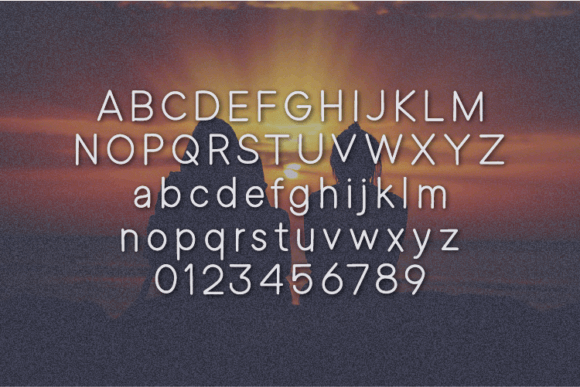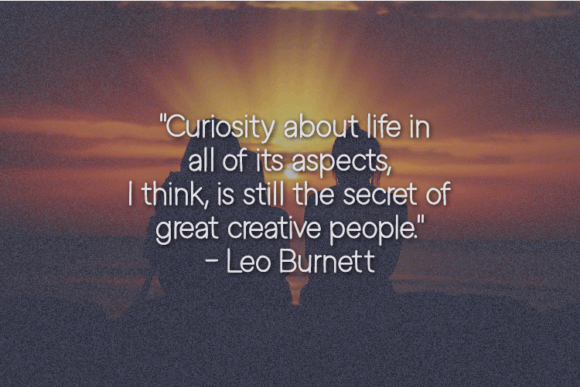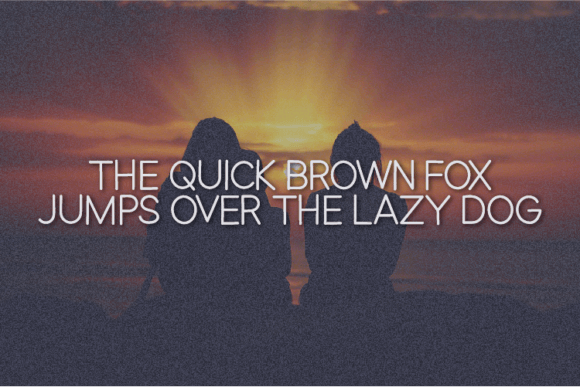
Introducing Friendly Font: Elevate Your Craft with a Touch of Elegance
In the world of design, the right font can make all the difference. It’s the perfect blend of style, readability, and personality that can elevate your craft and set it apart from the competition. If you’re on the hunt for a typeface that embodies a natural and elegant style, look no further than Friendly Font. This casual and neat sans serif font is here to revolutionize the way you approach your designs, making it easier than ever to create stunning visual content that captivates your audience.
The Essence of Friendly Font
Friendly Font is more than just a typeface; it’s a design companion that understands the needs of modern creators. Its sans serif design ensures a clean and minimalist look that’s versatile enough to be used across various platforms and projects. Whether you’re working on a logo, a website, a packaging design, or any other creative endeavor, Friendly Font promises to enhance your work with its effortless elegance.
Key Features of Friendly Font
- Natural and Elegant Style: The font boasts a unique blend of simplicity and sophistication, making it perfect for designers who aim to create a lasting impression.
- Casual and Neat: Its casual vibe ensures your designs feel approachable and friendly, while its neatness guarantees clarity and readability.
- Versatility: Friendly Font can be used for a wide range of projects, from digital content to print materials, without losing its charm.
- Easy to Read: The clear and straightforward design of the font ensures that your message is conveyed effectively, making it ideal for body text and headings.
For designers and crafters, finding a font that meets all their needs can be a challenge. Friendly Font addresses several key pain points:
- Time-Saving: With Friendly Font, you can achieve professional-looking results with minimal effort, allowing you to focus on other aspects of your project.
- Consistency: Its elegant style ensures consistency across your designs, helping to build a strong brand identity.
- Standing Out: In a sea of generic fonts, Friendly Font helps your work stand out, giving you a competitive edge.
How to Use Friendly Font Effectively
To make the most out of Friendly Font, consider the following tips:
- Pair it Wisely: Combine Friendly Font with other fonts that complement its style to create visual interest.
- Experiment with Sizes: Play around with different font sizes to establish a hierarchy and add depth to your designs.
- Adjust the Color: Choose colors that align with your brand’s palette or the mood you’re trying to convey.
Friendly Font is a game-changer for designers and crafters looking to elevate their work with a natural and elegant sans serif typeface. Its versatility, readability, and effortless style make it an invaluable tool in your design arsenal. Whether you’re aiming to create a cohesive brand identity or simply looking for a font that can keep up with your creative demands, Friendly Font is here to impress. Give it a try and discover how it can transform your designs, making your products stand out with little effort.
- What type of projects is Friendly Font best suited for?
- Friendly Font is versatile and can be used for a wide range of projects, including logos, websites, packaging, and more.
- Is Friendly Font easy to read?
- Yes, one of the key features of Friendly Font is its readability, making it suitable for both body text and headings.